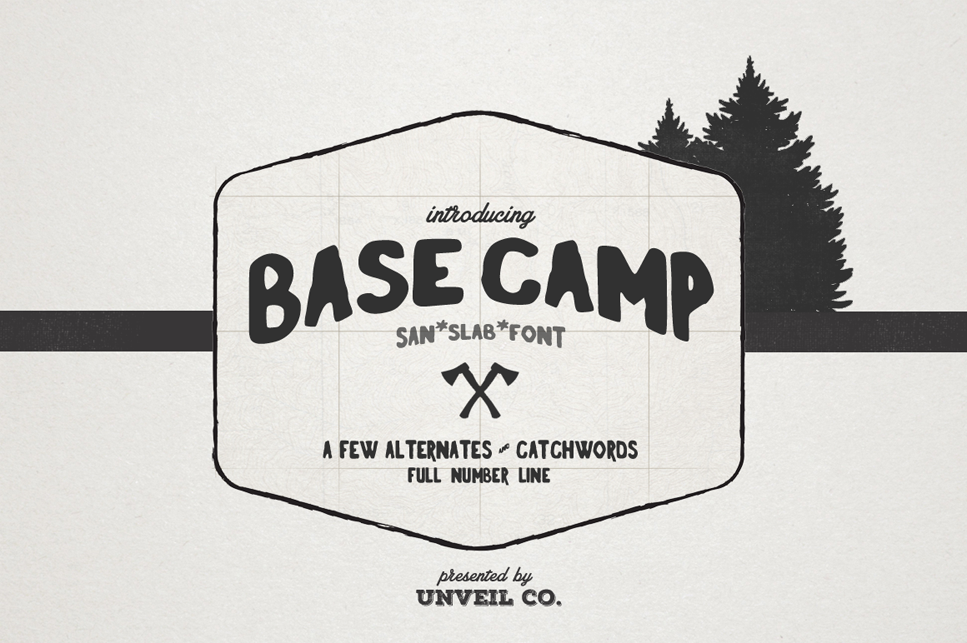
Basecamp Typeface
Introducing Basecamp Typeface -- Handmade/Hand-drawn.
This typeface has that Backwoods/Outdoors feel to it. With this typeface you can create a one-of-a-kind Logo, Poster, Invitations, etc.; use your imagination.